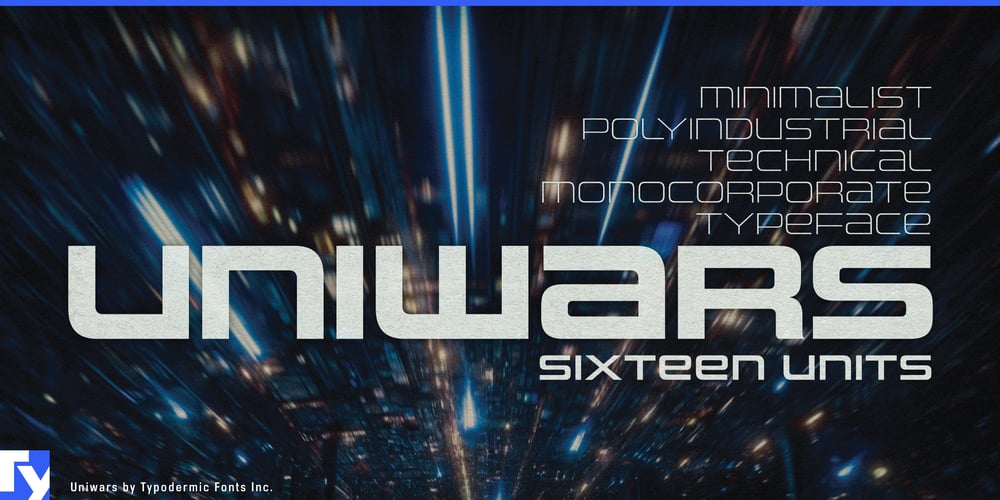
Uniwars
Uniwars font
Uniwars Font Family was designed by Ray Larabie and published by Typodermic. Uniwars contains 16 styles and family package options. Uniwars: a typeface that slices through visual clutter with the precision of a master swordsmith’s blade. Forged in the crucible of 20th Century Japanese industrial design, this font family embodies the spirit of minimalist efficiency that transformed post-war Japan into a technological powerhouse.At its core, Uniwars is a visual haiku—each letterform distilled to its purest essence. The bold, unicase characters stand like sentinels of modernity, their wide, extended shapes echoing the vast horizons of progress. This is not mere typography; it’s a manifesto of form following function, stripped of unnecessary embellishments and honed to perfection. The clean, orthogonal style of Uniwars pays homage to the angular precision of Japanese logotypes that became synonymous with quality and innovation. Each character is a micro-machine, engineered to perform its task with unwavering efficiency.Uniwars offers designers a palette of eight weights, each with its oblique counterpart. This range provides the flexibility of a well-stocked arsenal, allowing you to deploy just the right typographic weapon for any design battle. From the whisper-thin lines of its lightest cut to the bold proclamations of its heaviest weight, Uniwars adapts to your creative vision with the versatility of a shape-shifting robot. The neoteric style of Uniwars transcends linguistic boundaries. Supporting a wide array of Latin-based European writing systems, this typeface ensures your message maintains its industrial edge whether it’s expressed in Albanian or Zulu. It’s a universal design language, as at home in a Helsinki tech startup as it is in a São Paulo creative agency.Are you prepared to revolutionize your designs with the power of industrial minimalism? Uniwars stands ready, its characters poised to march across your layouts with the unified purpose of a well-oiled machine. Get it today and infuse your projects with the spirit of industrial innovation. In a world cluttered with visual noise, Uniwars cuts through the chaos, leaving in its wake a landscape of clarity, purpose, and unmistakable style.